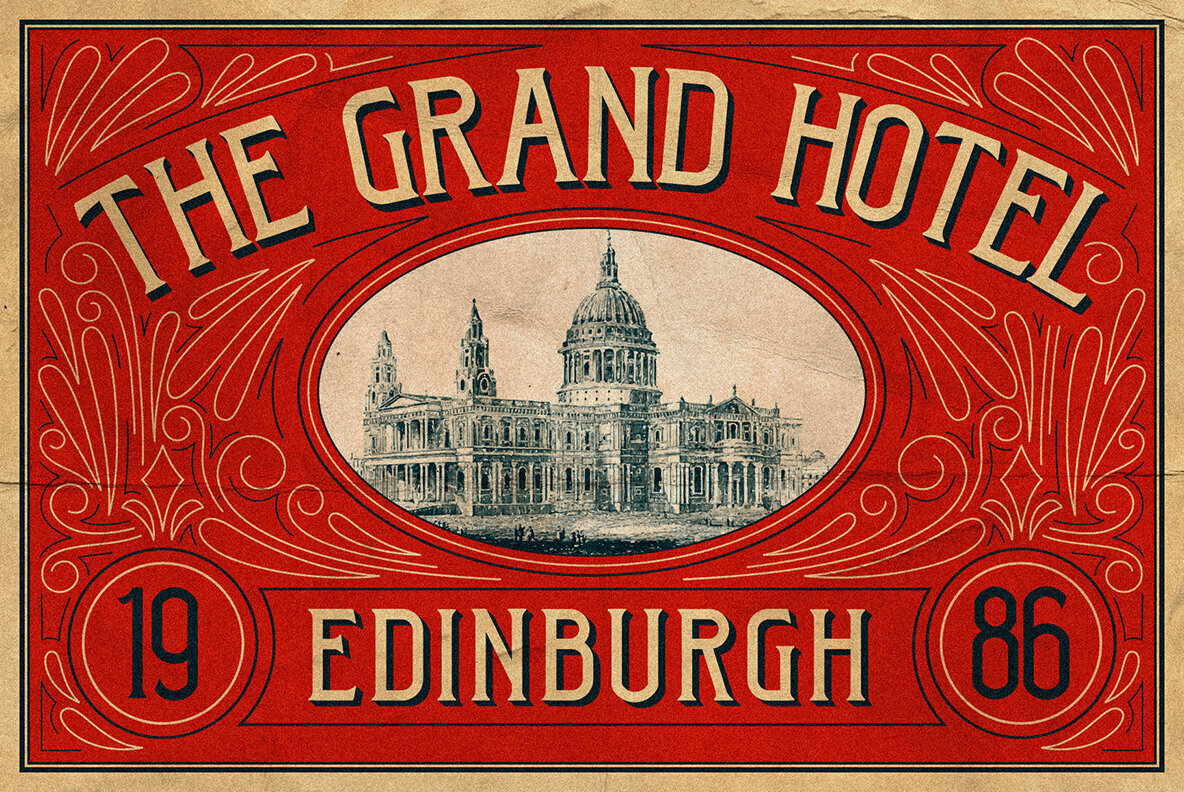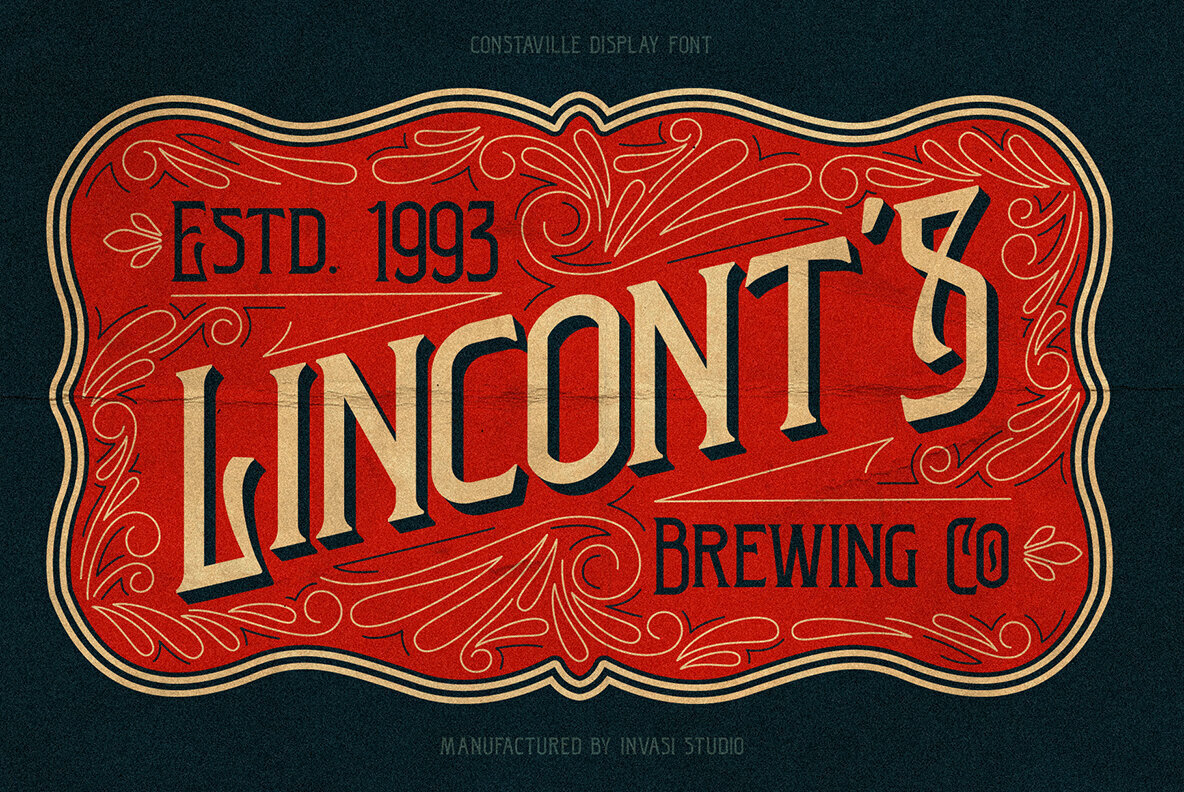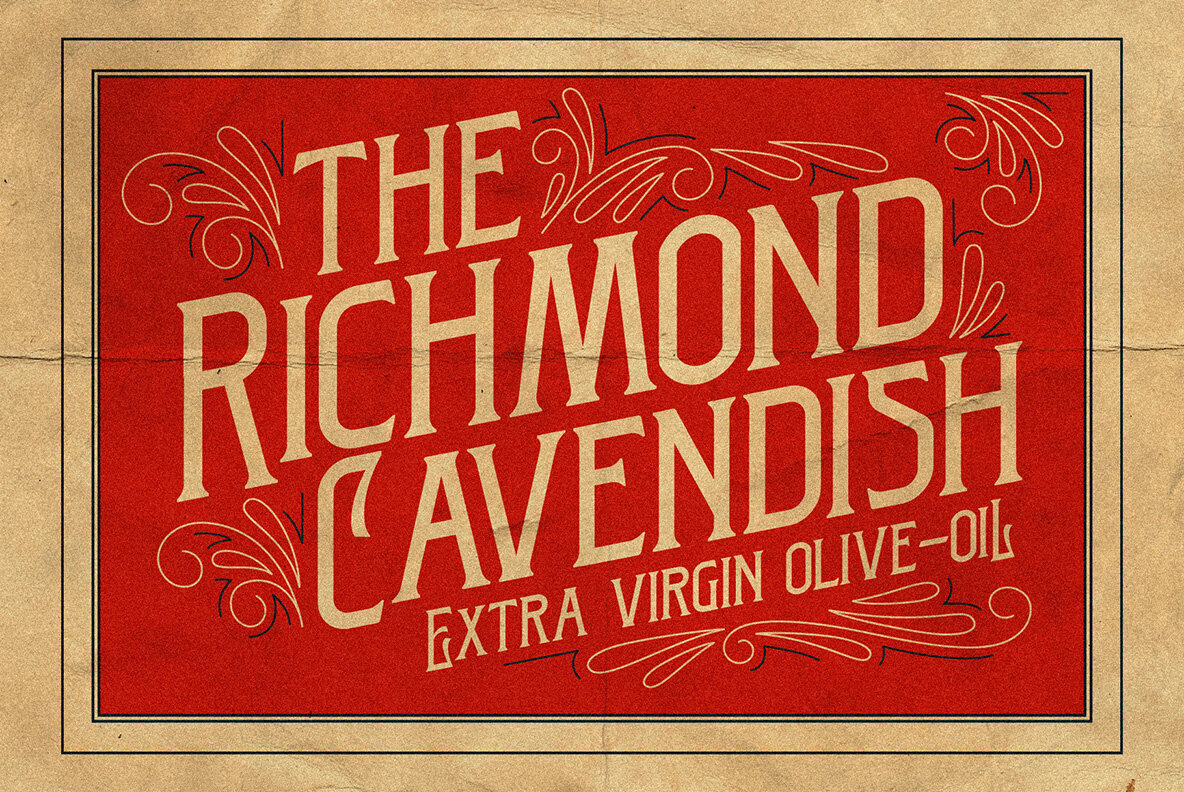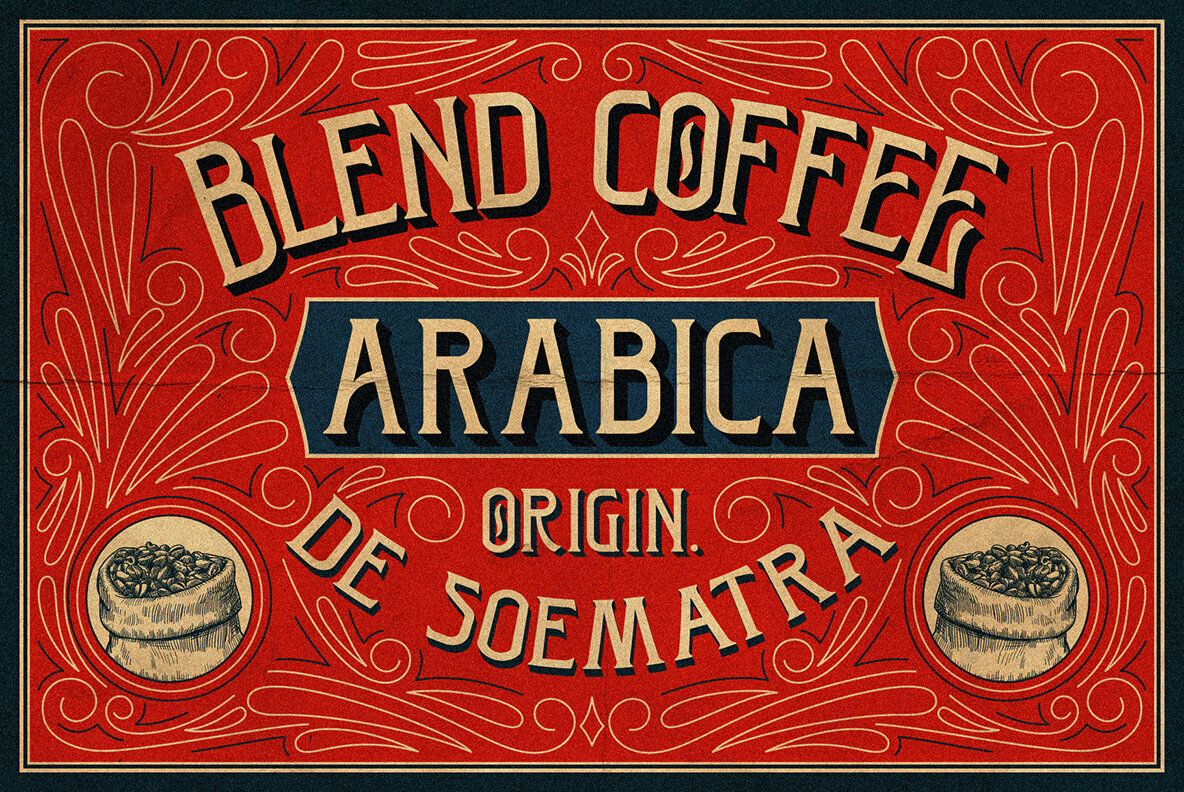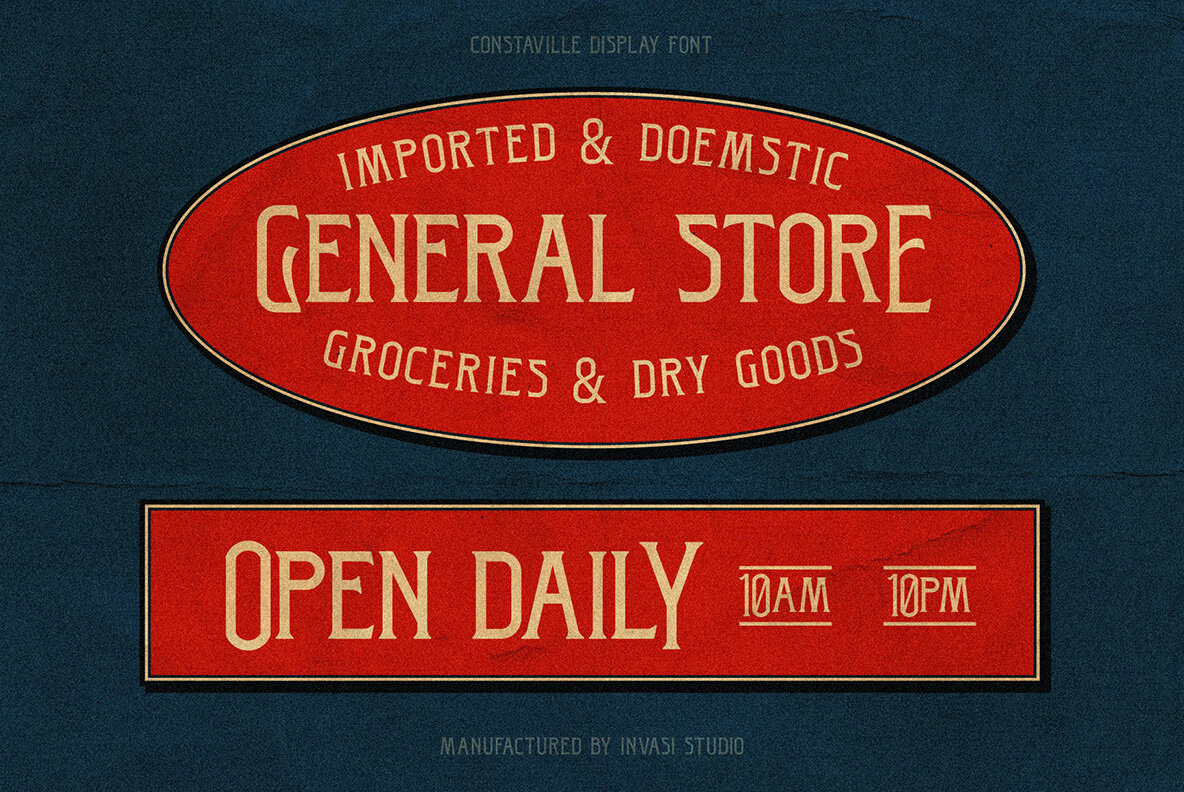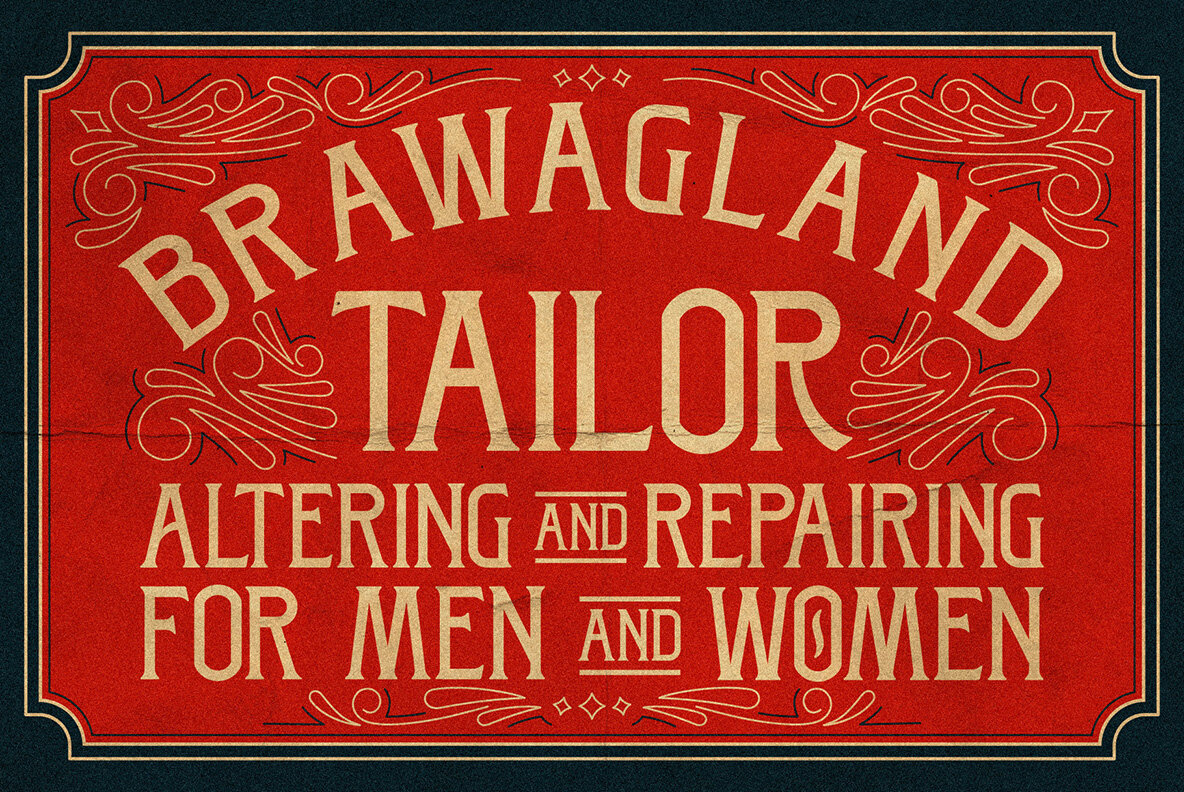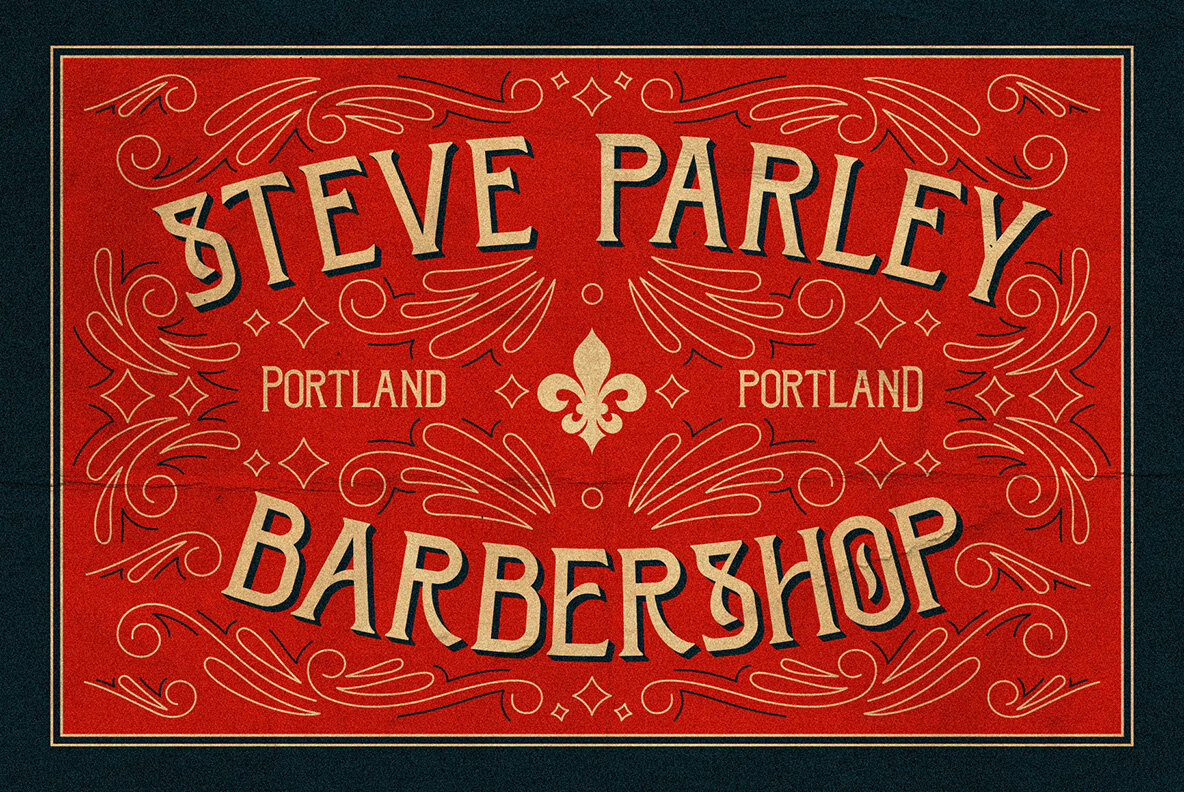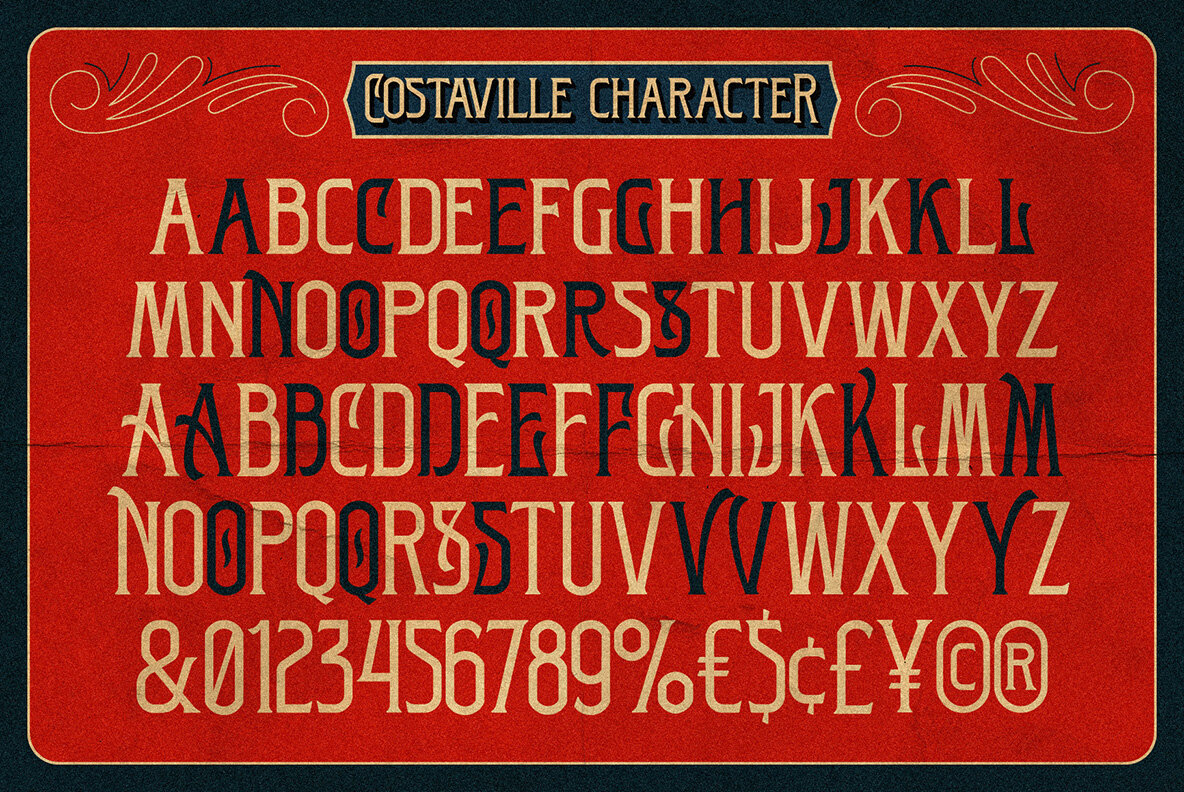
Costaville Font
Costaville
Delve into the elegance of 19th-century luggage labels with Costaville, a thick and thin serif typeface that channels vintage charm in a modern context. Designed in an all-caps style, this font offers a distinctive presence for various design applications, from signage to cover design. Its structure is further enriched by OpenType features that include stylistic alternates, lending each composition an unparalleled character. The typeface accommodates Latin-based languages, making it versatile across global projects. Whether crafting a poster, a logo, or a headline, Costaville's classic yet contemporary aesthetic fits perfectly in any display context.Costaville: A Nostalgic Condensed Serif